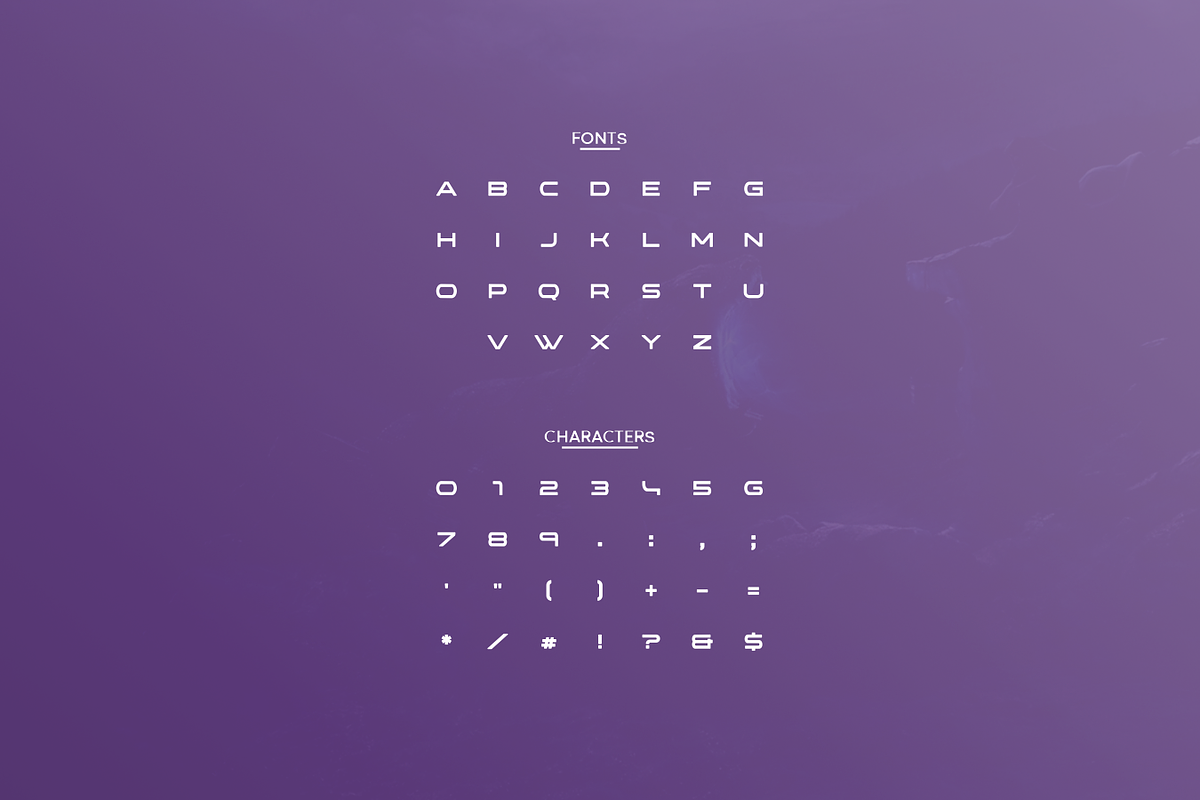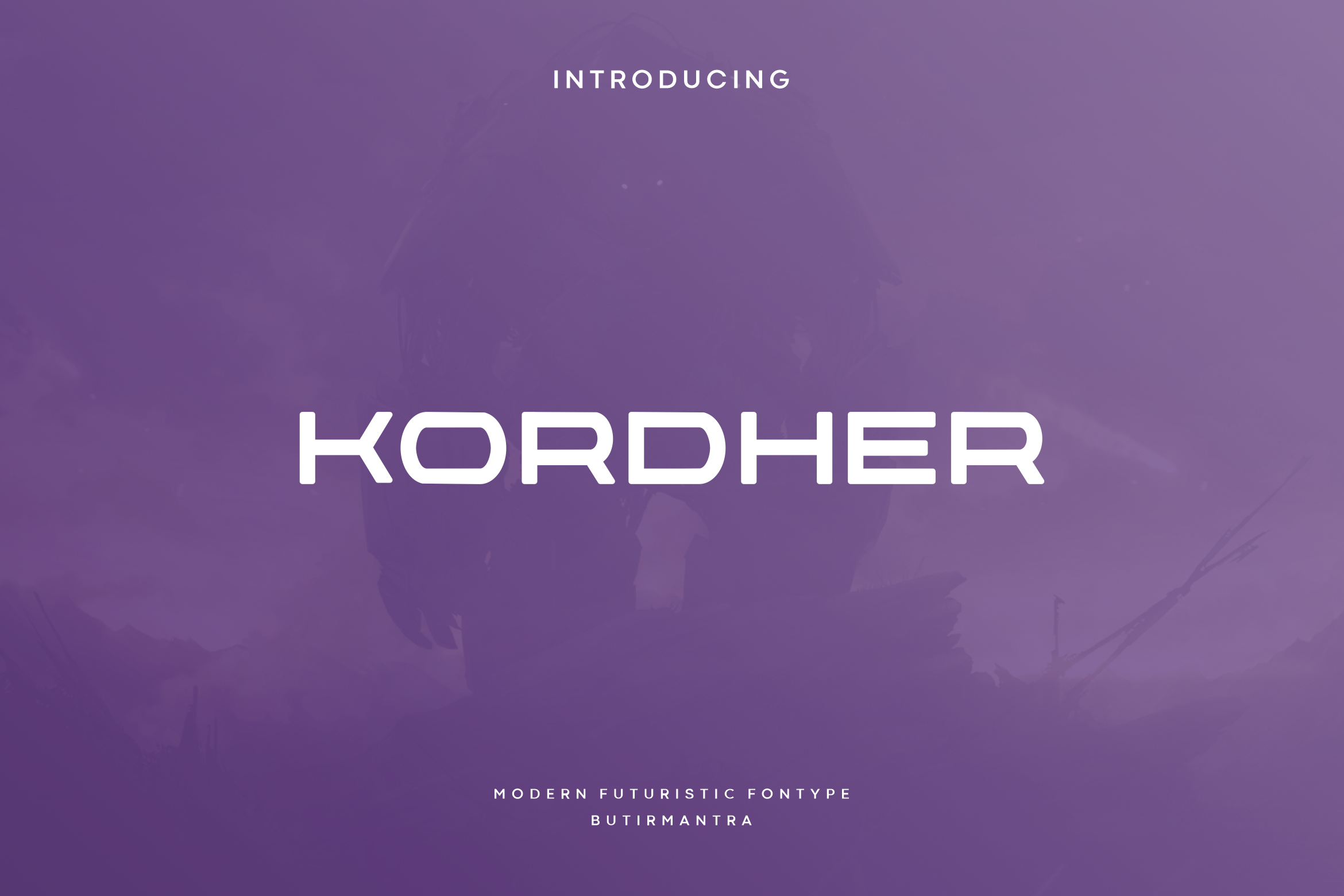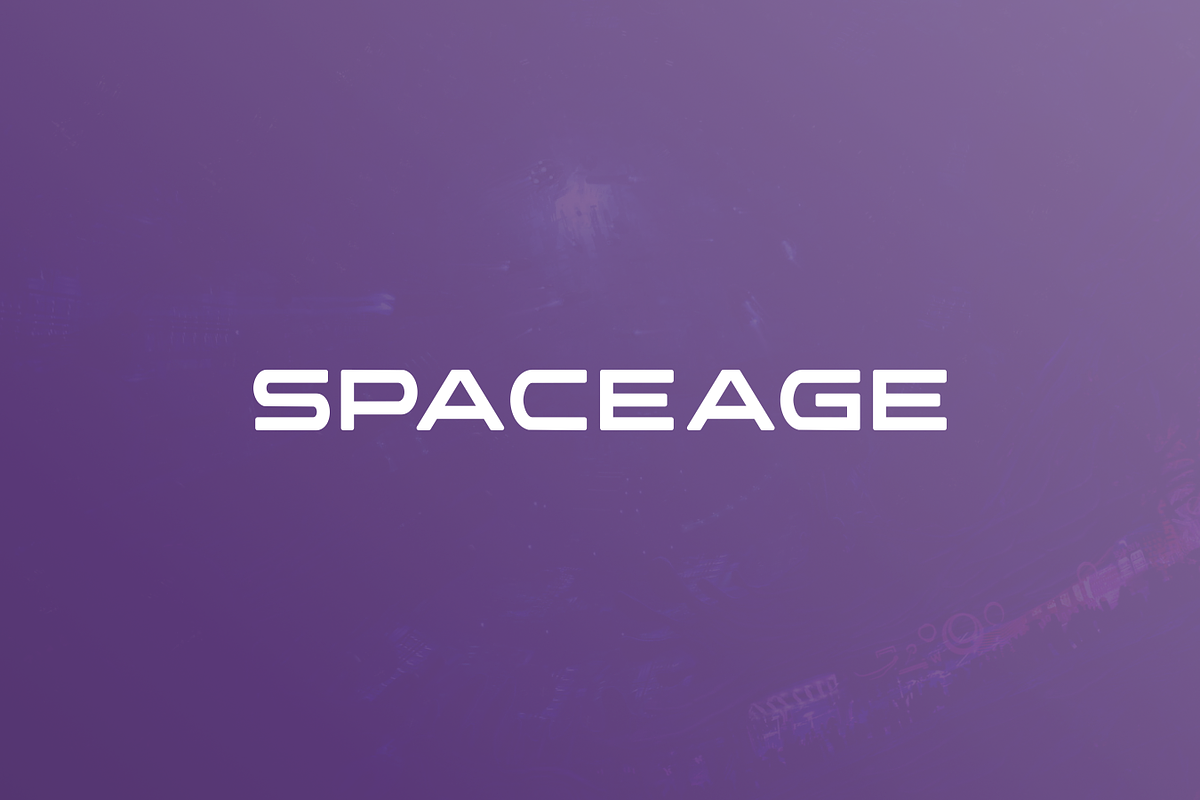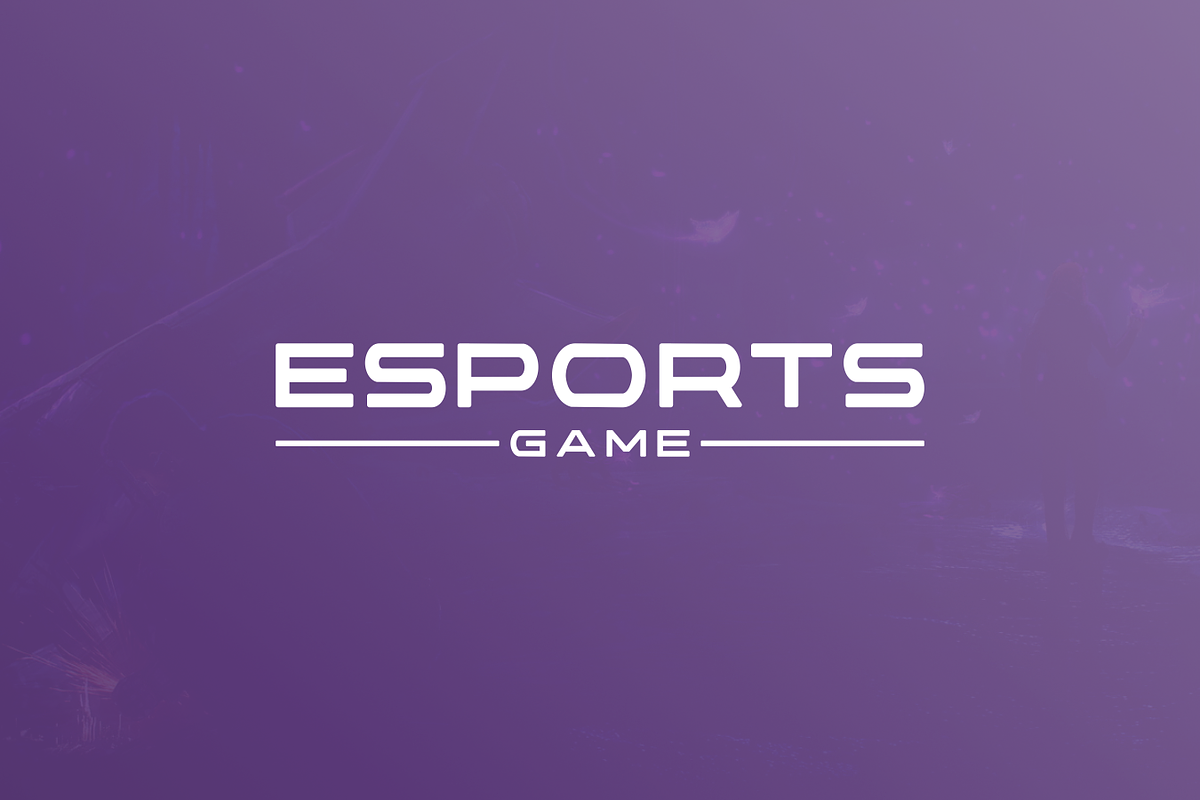
Kordher - Modern Futuristic Typeface
Kordher is a modern, elegant and futuristic display font. This font would be ideal for writing web designs, business cards, or pretty much anything else that requires a unique touch.
- Punctuation & Number